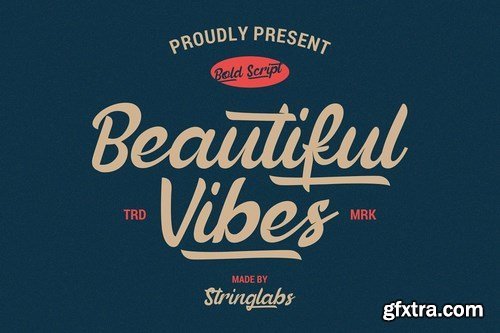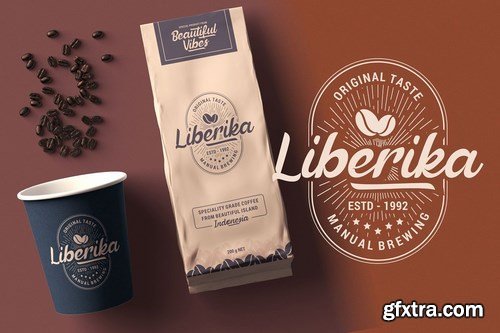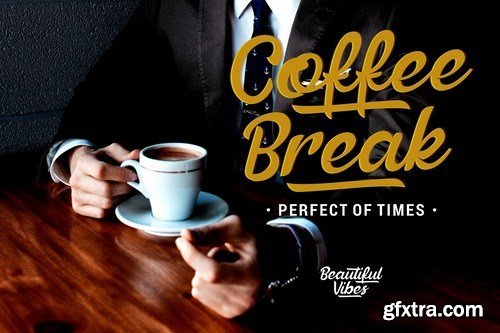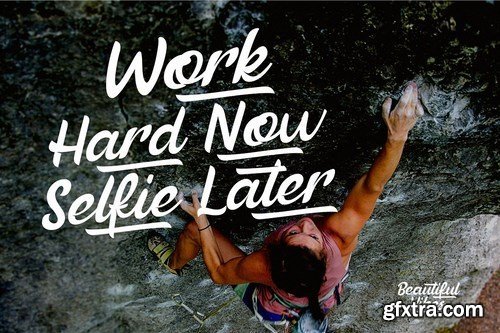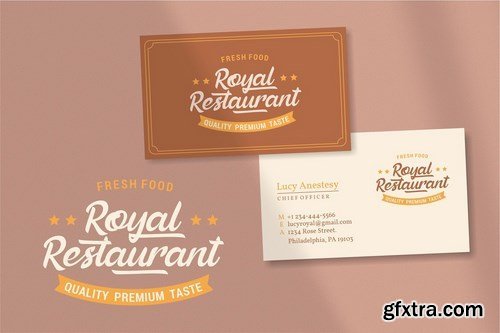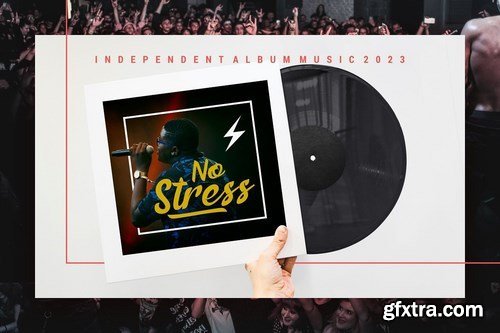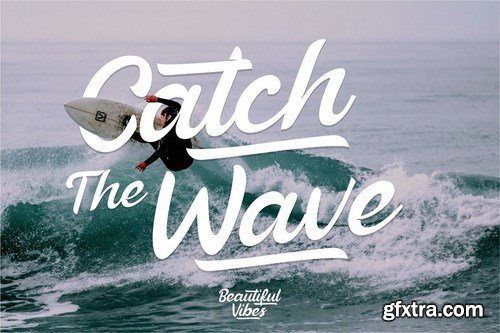
Beautiful Vibes is a bold script font with unique design taste and a classic retro style of the 80s, trendy, vintage, and sporty. Beautiful Vibes is perfect for vintage lovers, besides this font is also perfect if used for brands such as: barbershop, motorcycle club, clothing, coffee shop, shoe brands, vapor shop, hipster and many more.